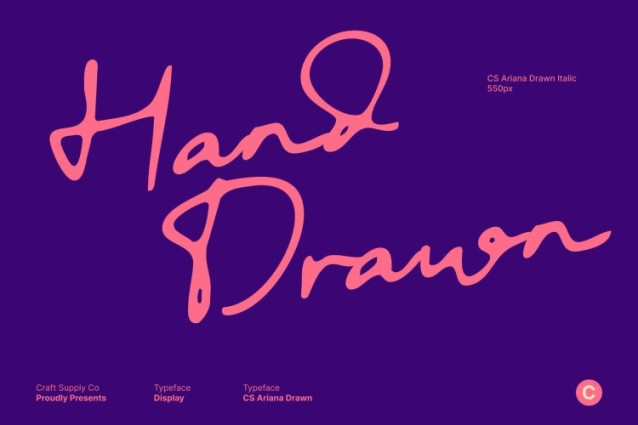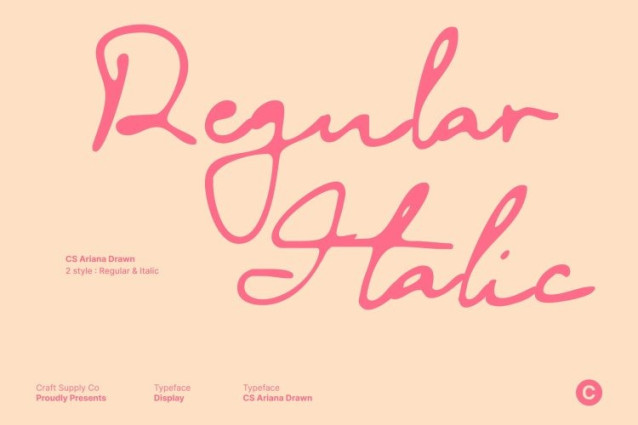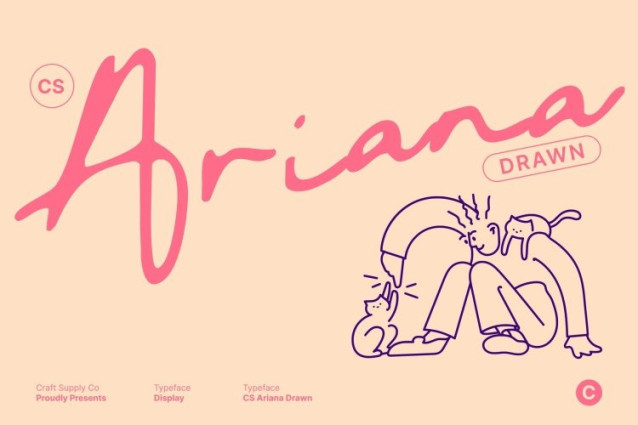
CS Ariana Drawn Font
CS Ariana Drawn Font This is a romantic script font created to express beauty, softness, and timeless elegance. Its flowing strokes and gentle movement capture the charm of classic handwritten romance, while the drawn effect adds an artistic, handmade quality. The result is a script that feels emotional, refined, and naturally expressive, perfect for designs that seek warmth and elegance.
Soft Curves with Artistic, Refined Detail
The character of shines through its soft curves and carefully balanced letterforms. Each stroke flows smoothly with subtle imperfections introduced by the drawn texture, giving the font a more personal and artistic feel. This delicate detailing enhances intimacy and charm, making the font feel alive without becoming overly ornate.
Delicate Expression for Romantic and Emotional Storytelling
Designed to support romantic storytelling, this font delivers a gentle and poetic presence. Its handwritten rhythm and soft drawn finish evoke sincerity and emotion, making every word feel heartfelt. Whether used in prominent headlines or subtle accents, this font adds grace, tenderness, and visual poetry to any composition.
Perfect for Book Covers, Weddings, and Lifestyle Designs
Ideal for elegant and expressive applications, works beautifully for book covers, wedding branding, invitations, lifestyle posters, editorials, and refined visual identities. Its romantic script style combined with an artistic drawn effect makes it especially suitable for love stories, personal celebrations, fashion features, and timeless branding projects.